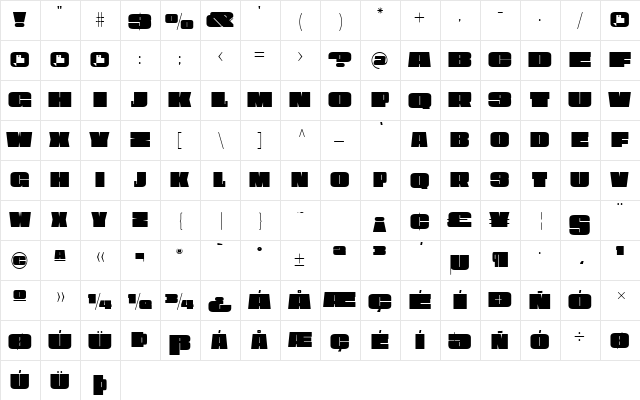
Obesum Caps ExtBlk Exp Regular Font Preview
Obesum Caps ExtBlk Exp Regular
Obesum Caps ExtBlk Exp Regular Font Details
| Foundry | deFharo |
| Designer | Fernando Haro |
Design Context for Obesum Caps ExtBlk Exp Typeface
Obesum Caps ExtBlk Exp offers clean, dependable letterforms without strong stylistic allegiance, making it a practical choice for designers who need flexibility.